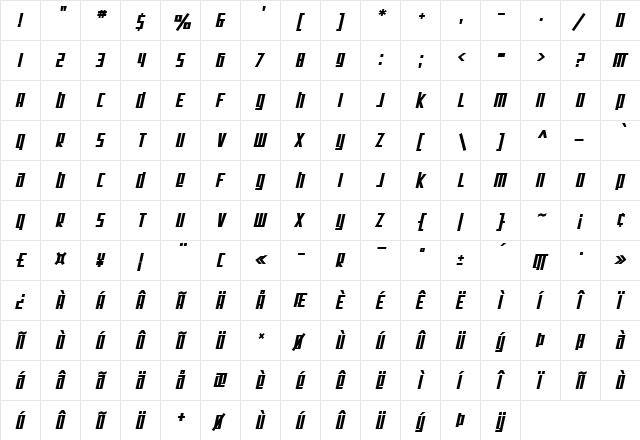
SF Square Root Bold Oblique
Design Context for SF Square Root Typeface
SF Square Root is a composed and adaptable typeface that performs quietly and consistently across a wide range of design contexts. Its italic angle brings a sense of urgency and motion to the letterforms. The heavy weight commands attention and anchors typographic hierarchies.